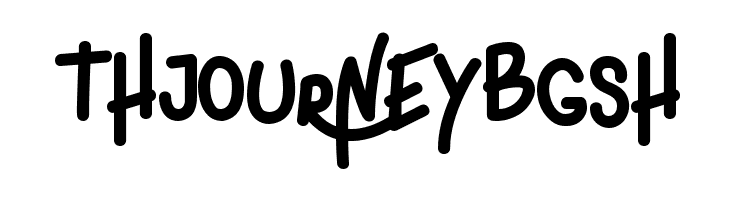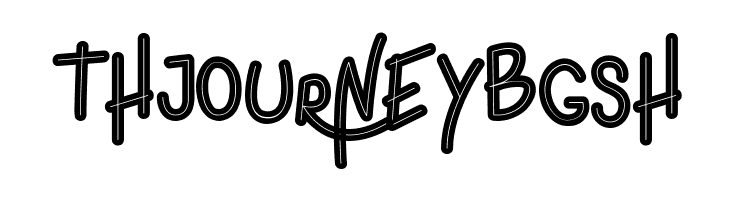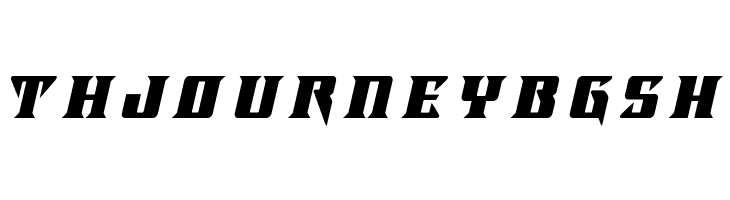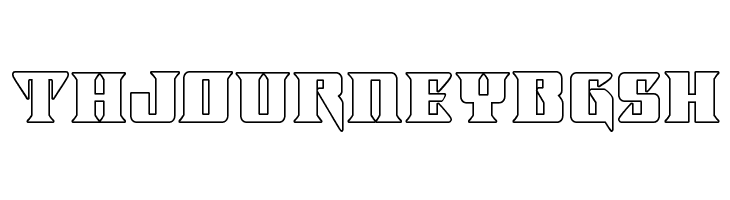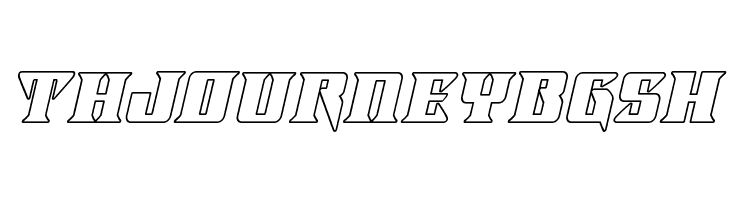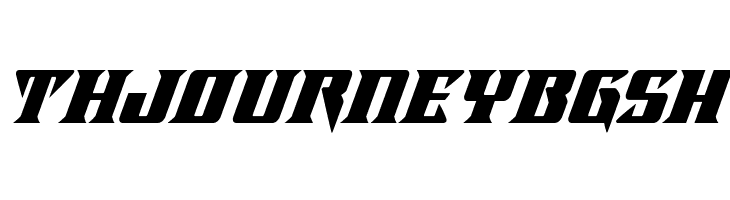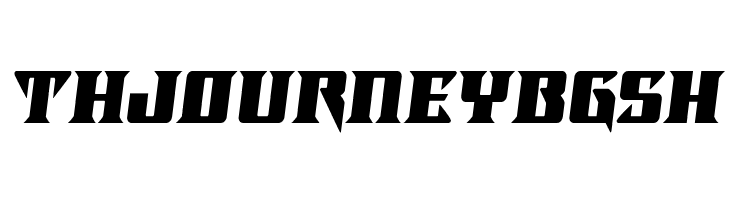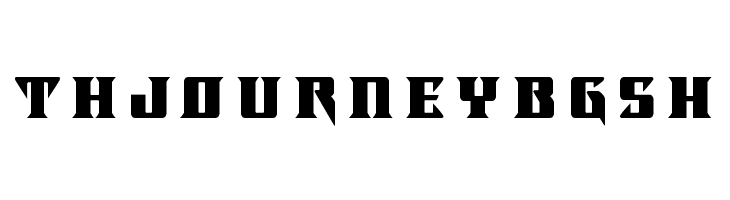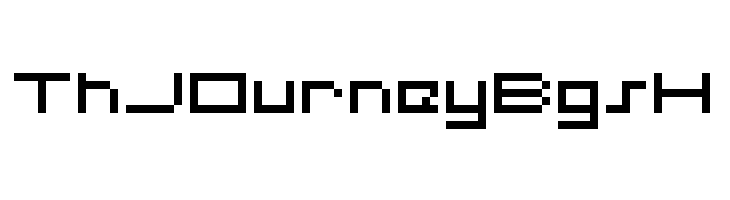
A bold, modern font with clean lines and consistent stroke weight.
A bold, slanted font with high contrast and modern appeal.
A bold, modern font with a strong geometric influence, ideal for impactful designs.
A bold, slanted font with thick strokes and a dynamic style.
A clean, modern font with consistent stroke width and balanced spacing.
A modern, slanted serif font with light weight and high contrast strokes.
A modern sans-serif font with medium weight and rounded edges for a clean, professional look.
A modern, slanted sans-serif font with medium weight and normal spacing.
A modern, slanted serif font with elegant curves and excellent readability.
A bold, geometric font with strong, heavy strokes and uniform shapes.
A bold, slanted font with a dynamic and modern style.
A modern, thin font with clean lines and a minimalist design.
A thin, slanted serif font with a modern and elegant style.
A bold, modern font with high contrast and geometric shapes.
A bold, geometric font with high contrast and unique character shapes.
A dynamic and elegant italic font with a stylish slant and moderate contrast.
A bold, distressed font with a textured, vintage appearance.
A bold, geometric font with a zigzag pattern and consistent thickness.
A bold, modern font with a dynamic slant and clean lines.
A bold, playful font with rounded, whimsical elements and consistent weight.
A playful, whimsical handwritten font with fluid strokes and dynamic movement.
A playful and whimsical handwritten font with fluid strokes.